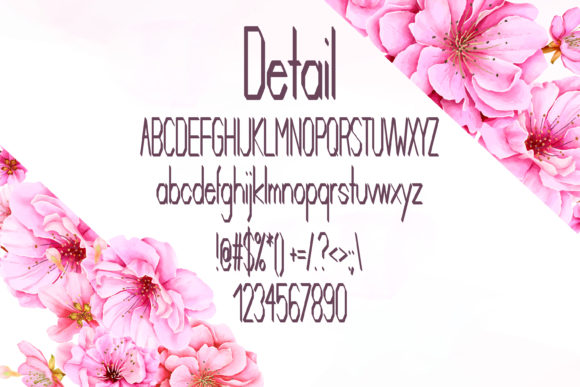
Introducing Detail Font: Elevate Your Designs with a Unique Display Font
In the world of typography, fonts play a crucial role in conveying messages, setting tone, and creating visual identities. For designers, crafters, and branding enthusiasts, finding the perfect font can be a daunting task. However, if you’re looking for a tall and casual display font that can elevate your designs, look no further than Detail Font. In this article, we’ll explore the features, benefits, and uses of Detail Font, and why it’s perfect for branding projects, striking posters, and web or app development.
What is Detail Font?
Detail Font is a modern, tall, and casual display font designed to make a statement. Its unique style and versatility make it an excellent choice for designers seeking to add a touch of personality to their projects. Whether you’re working on a branding campaign, creating eye-catching posters, or developing a website or app, Detail Font is the perfect choice.
Key Features of Detail Font
- Tall and Casual: Detail Font boasts a tall and casual design, making it perfect for headlines, titles, and display text.
- Unique Style: Its distinctive style sets it apart from other fonts, ensuring your designs stand out from the crowd.
- Versatile: Detail Font is suitable for various design projects, from branding and posters to web and app development.
- Easily Readable: Despite its tall stature, Detail Font remains easily readable, even at smaller sizes.
Benefits of Using Detail Font
So, why choose Detail Font for your next project? Here are some benefits that make it an excellent choice:
- Enhance Brand Identity: Detail Font can help create a unique visual identity for your brand, setting you apart from competitors.
- Grab Attention: Its striking design ensures your message gets noticed, making it perfect for posters, billboards, and other attention-grabbing applications.
- Flexibility: Detail Font can be used in various design contexts, from digital to print, and in different languages.
- Time-Saving: With Detail Font, you can quickly create stunning designs without spending hours on typography.
Use Cases for Detail Font
Detail Font is an incredibly versatile font, suitable for a wide range of design projects. Here are some use cases to get you started:
- Branding Projects: Use Detail Font to create a unique visual identity for your brand, including logos, business cards, and letterheads.
- Posters and Flyers: Make a statement with Detail Font in your posters, flyers, and other print materials.
- Web and App Development: Add a touch of personality to your website or app with Detail Font, perfect for headings, titles, and display text.
- Social Media Graphics: Elevate your social media presence with Detail Font in your graphics, posts, and stories.
Tips for Using Detail Font Effectively
To get the most out of Detail Font, here are some tips to keep in mind:
- Pair with Complementary Fonts: Combine Detail Font with complementary fonts to create visual interest and hierarchy.
- Experiment with Colors: Try different color schemes to find the perfect match for your design and brand.
- Pay Attention to Spacing: Ensure sufficient spacing between letters and lines to maintain readability.
- Use it Boldly: Don’t be afraid to use Detail Font in bold and creative ways to make a statement.
In conclusion, Detail Font is a unique and versatile display font perfect for designers, crafters, and branding enthusiasts. Its tall and casual design, combined with its readability and flexibility, make it an excellent choice for various design projects. By incorporating Detail Font into your workflow, you’ll be able to create stunning designs that grab attention, convey messages, and elevate your brand identity.